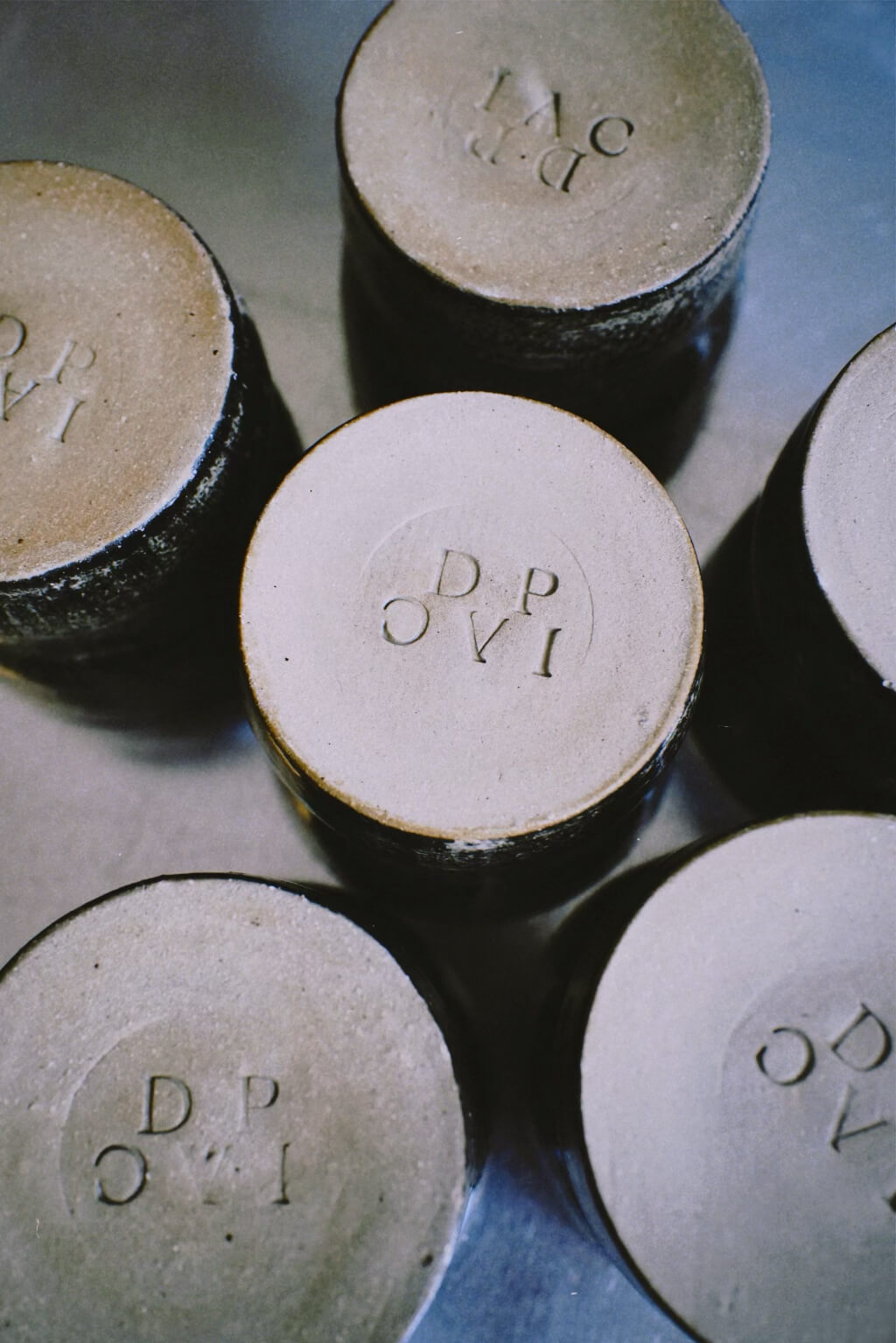
Fenul MUG
Designed in close collaboration with us, this high-fired ceramic mug celebrates the typeface Fenul and was meticulously handcrafted by In August Company.
Inspired by an anatomy book—especially the chapter on bones—the Fenul typeface features thinner centers and heavier ends. Following this unique morphology, each mug subtly narrows in the middle and concludes with a final touch: delicate black hand-painting.
Fenul Mugs were hand-thrown using stoneware clay with a distinctively rough texture in small editions of 50 pieces and may never be made again. After high firing in an electric kiln, the color and structure of the clay transform. This process might result in tiny iron speckles or other elements surfacing on the ceramic. Rather than flaws, these subtle variations serve as beautiful imperfections that celebrate our craft’s hand-made and distinctive nature.
Crafted in a small Prague workshop, every mug is hand-thrown, hand-painted, bisque-fired, and finally glazed. As a result, each piece offers slight differences in shape and decoration, adding to its unique charm.
Font in use: Fenul Coll.